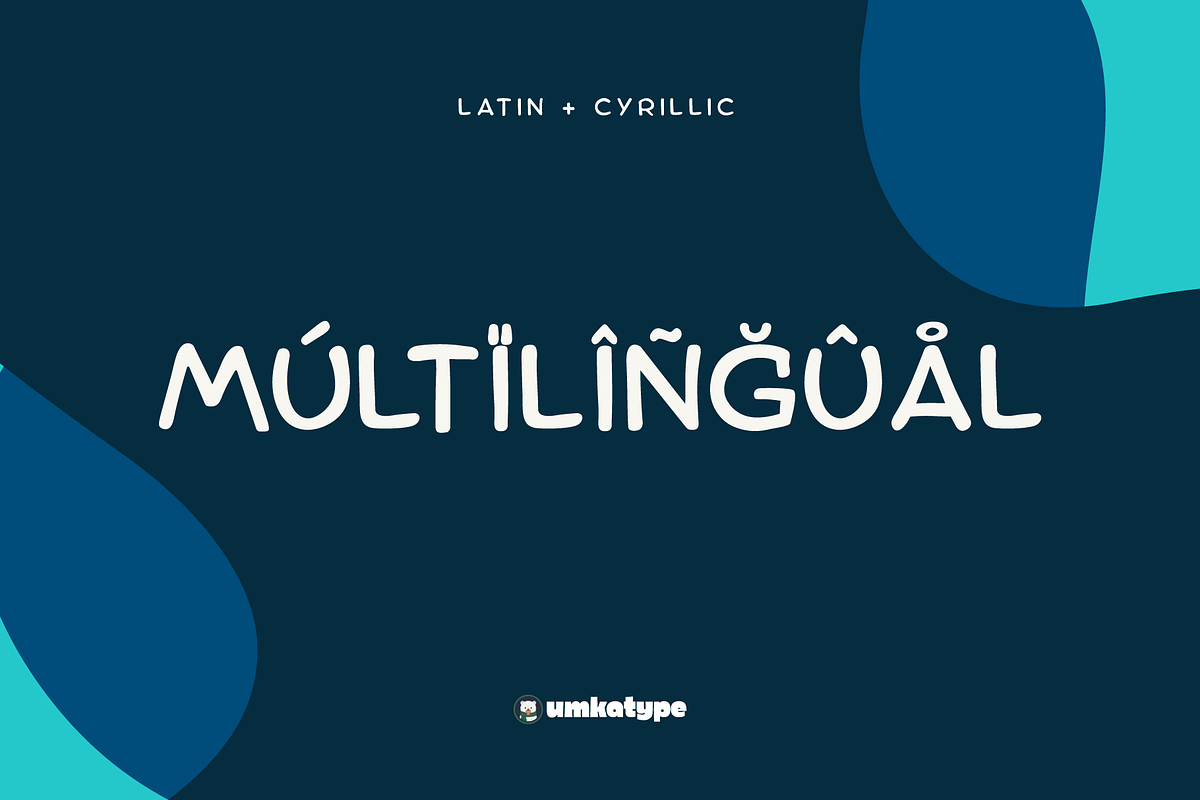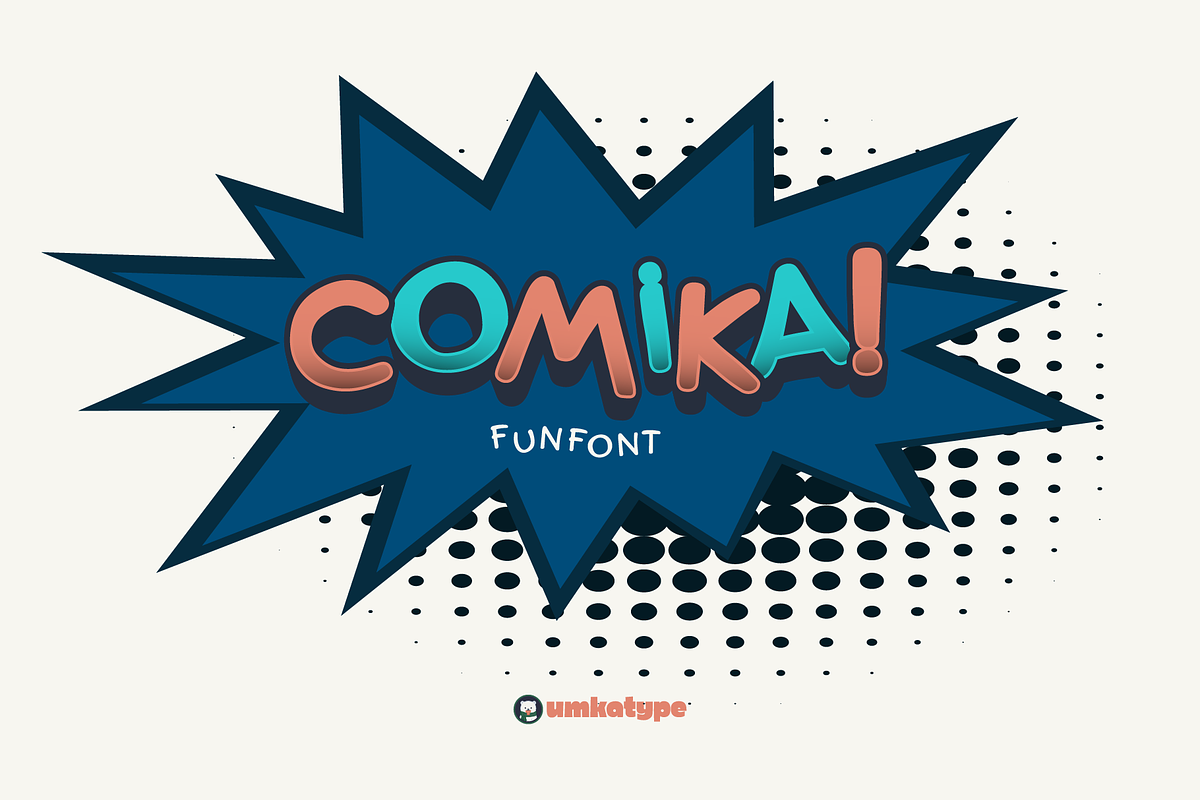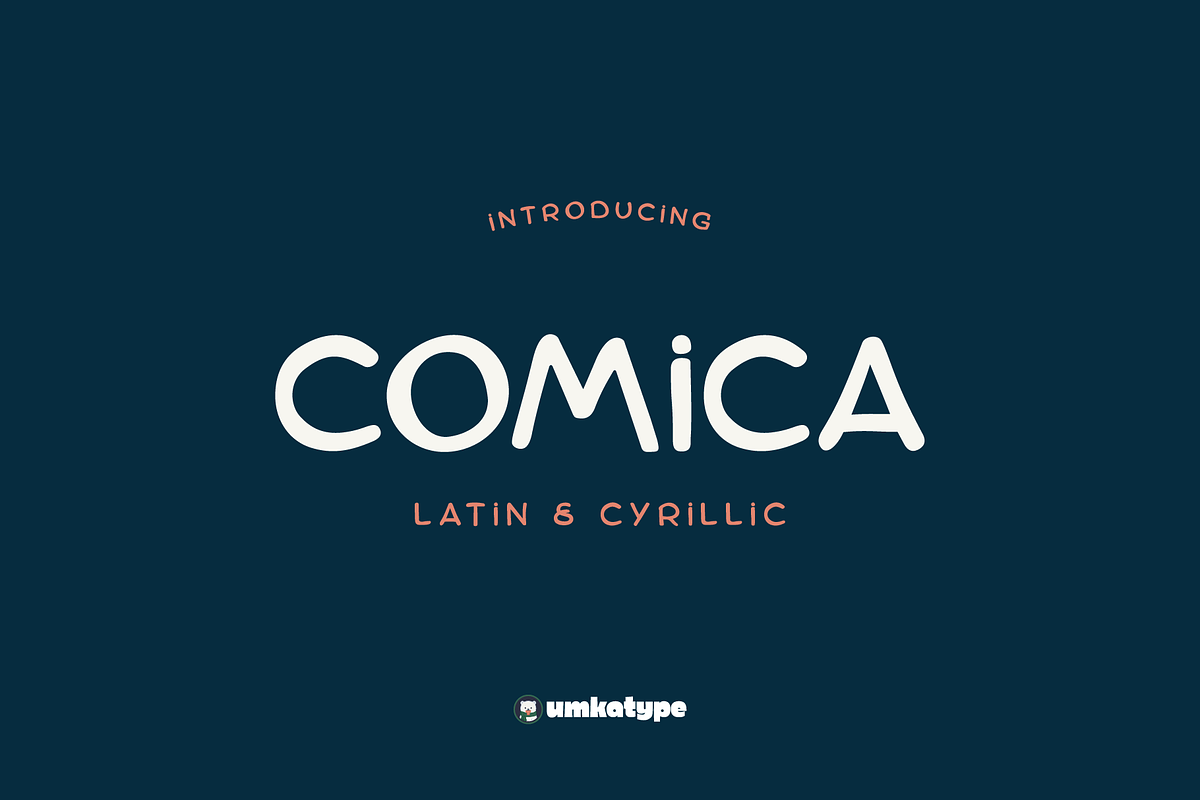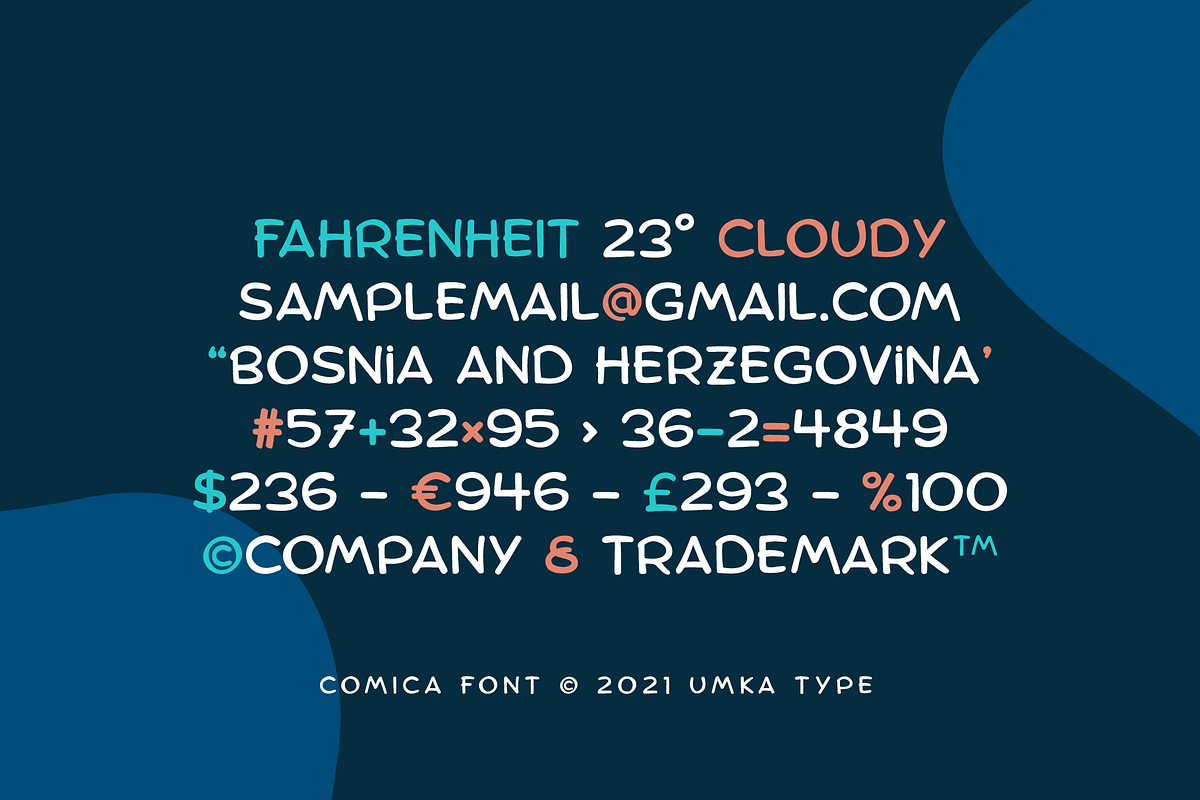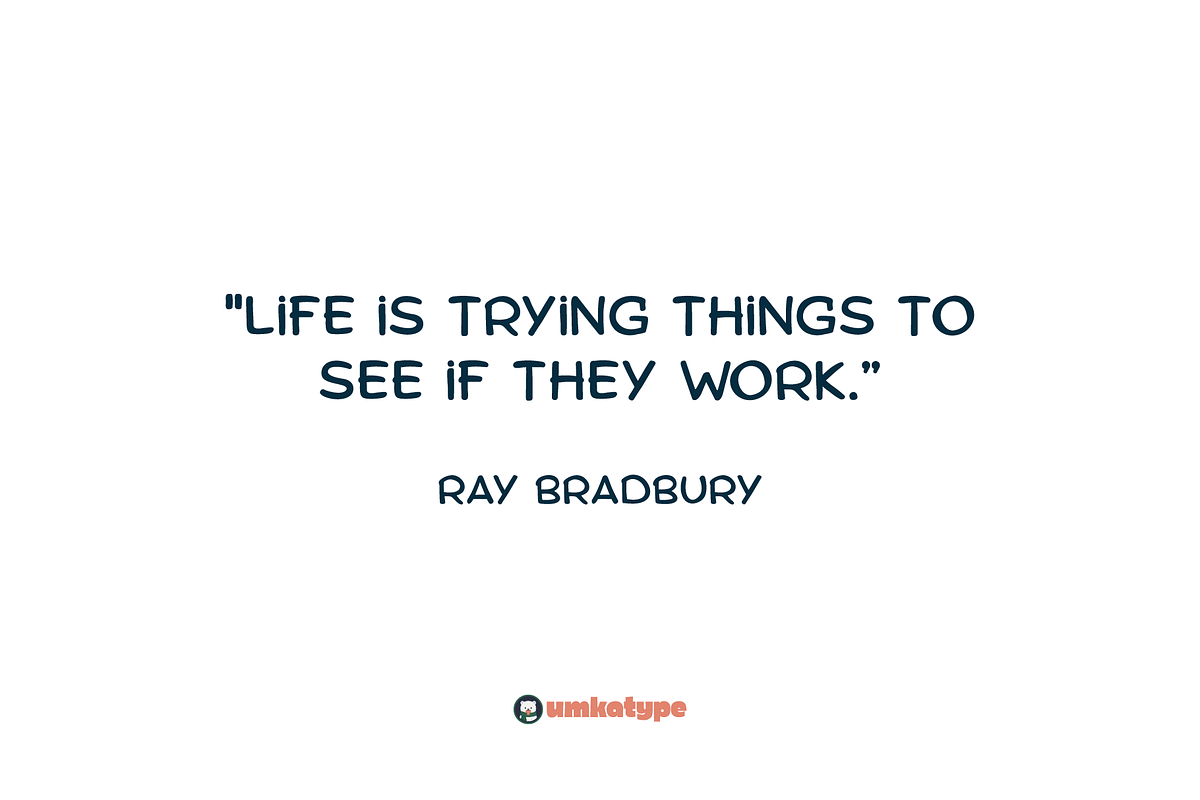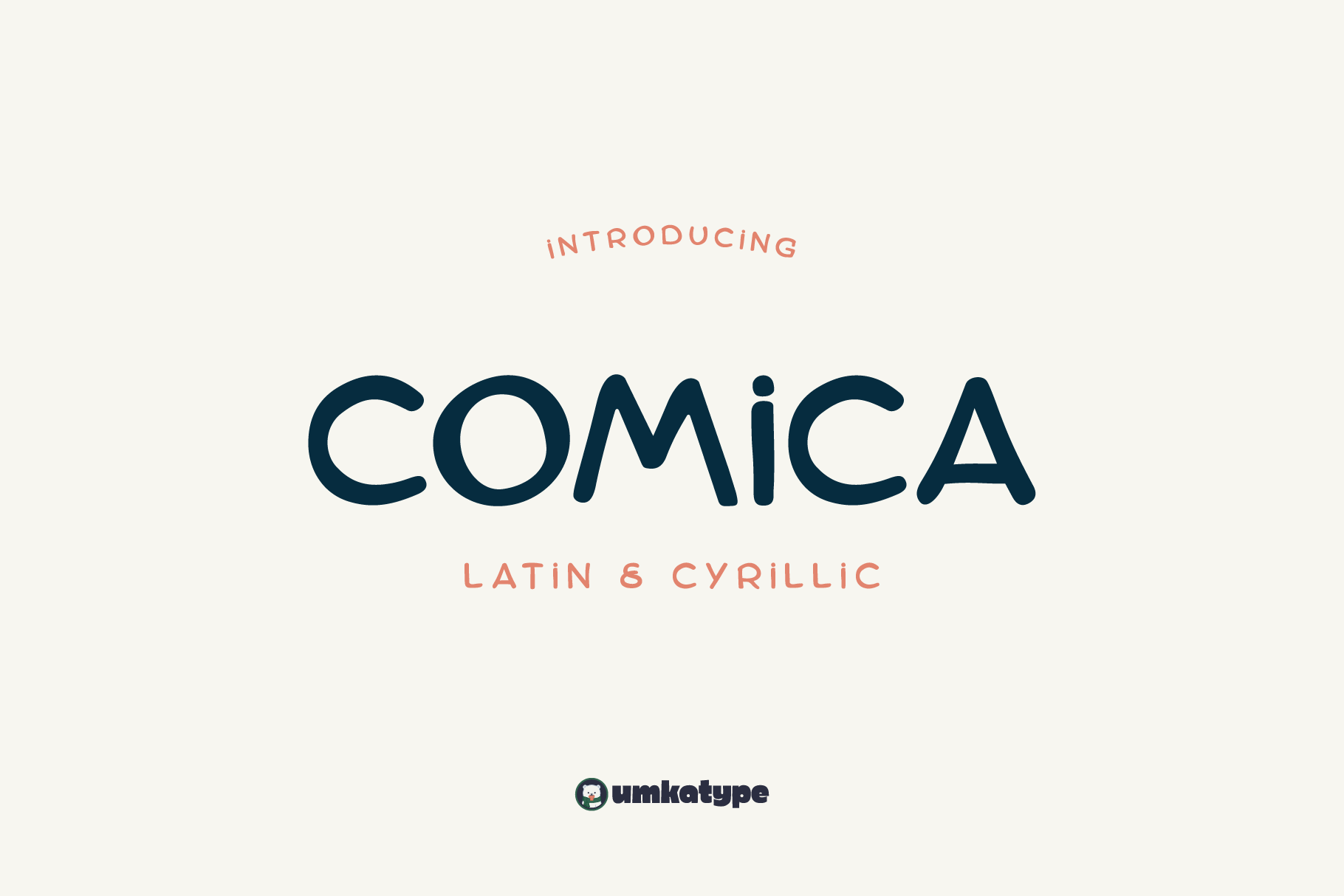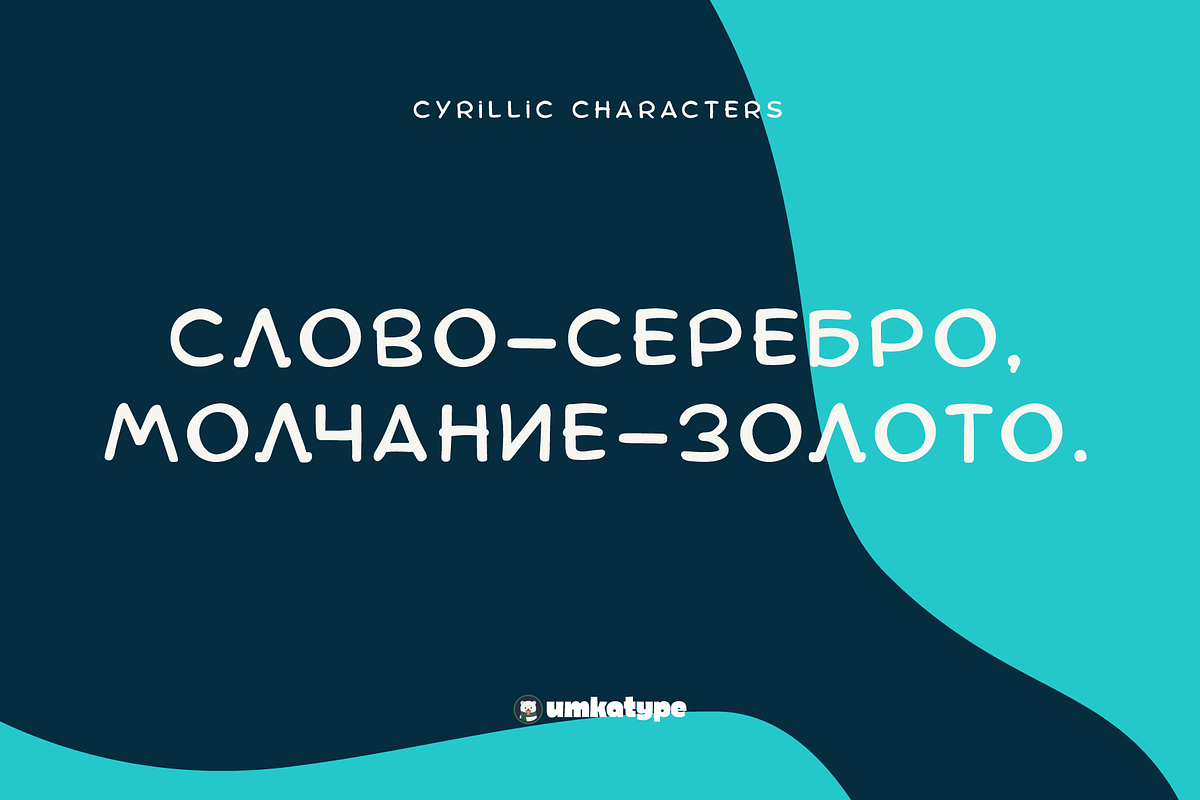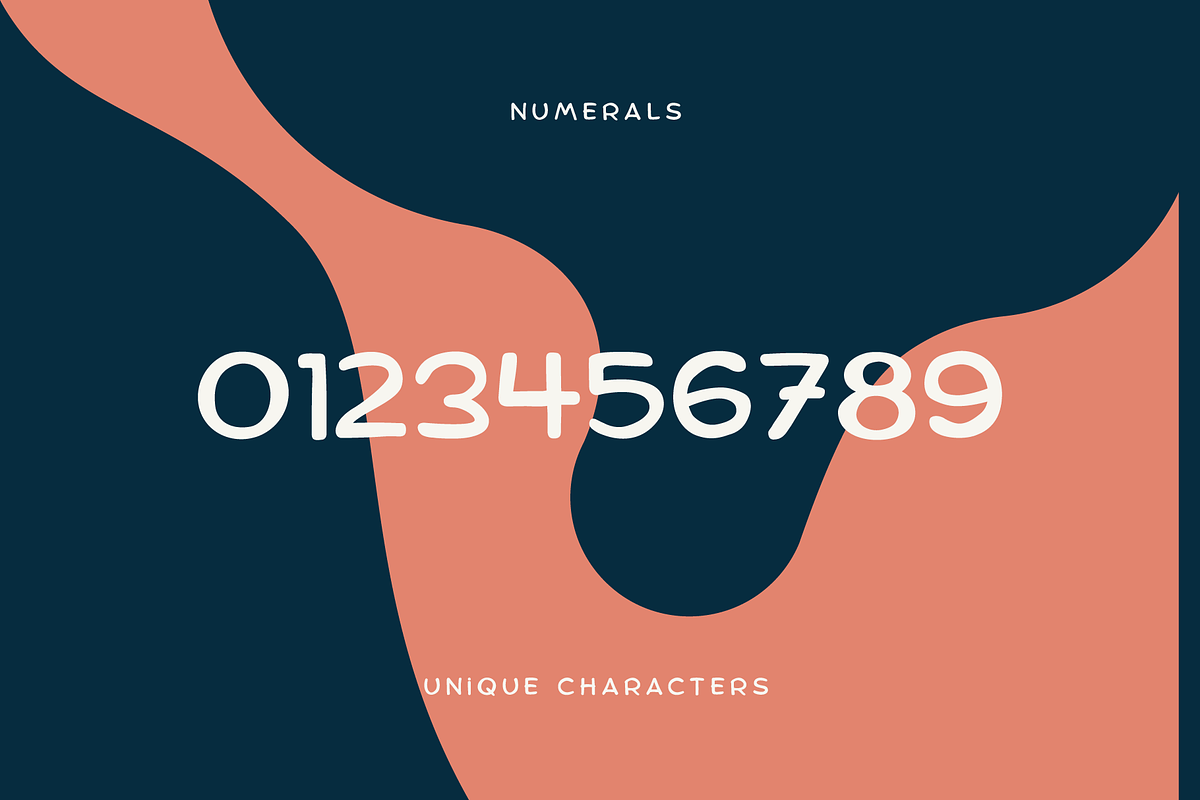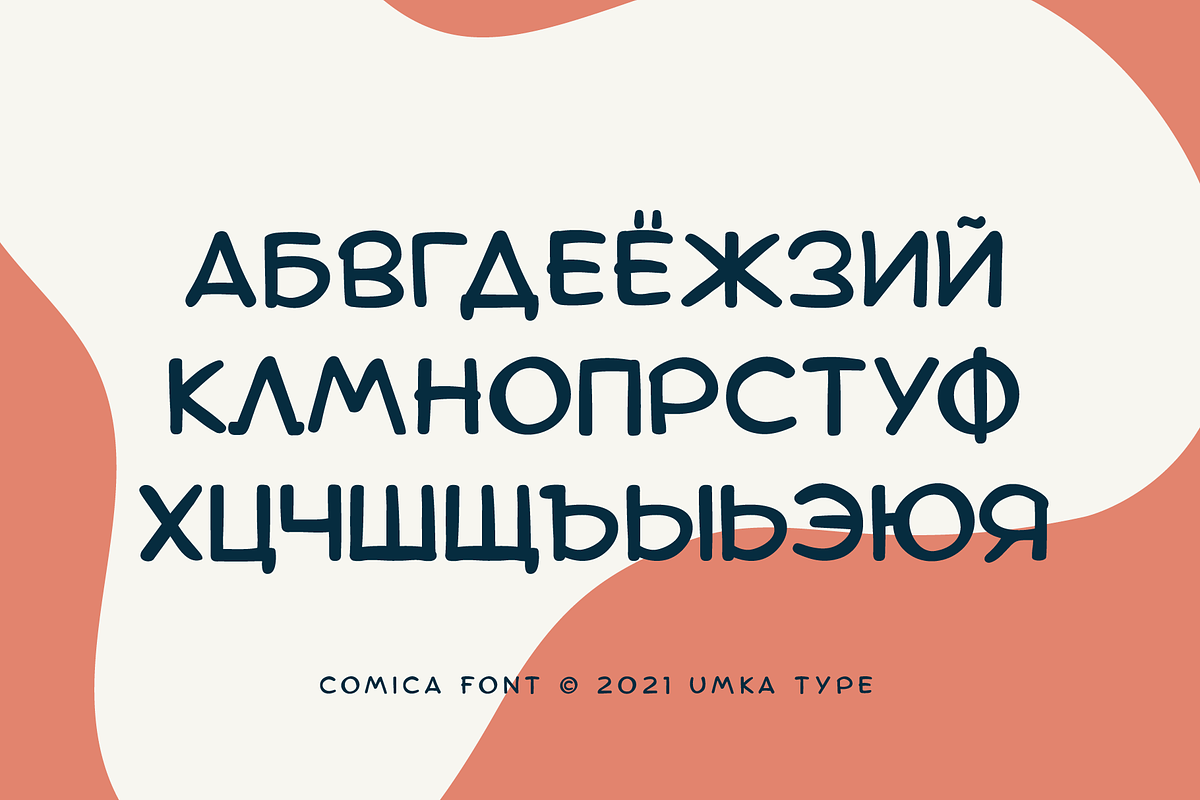
Comica Display Font
Comica - A Fun Font
- Comica is a carefully crafted font.
- Multilingual: It has Extended Latin and Extended Cyrillic letters.
Comica created for games, web design, branding and social media works.